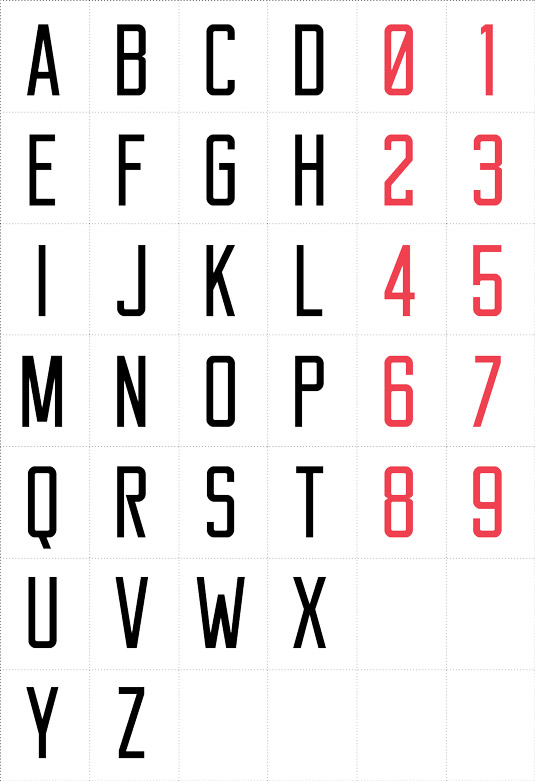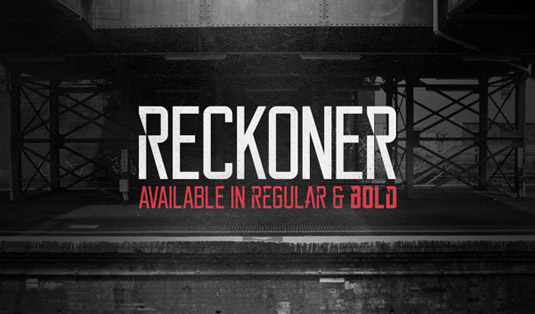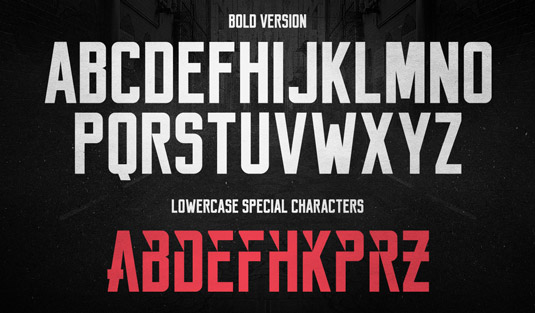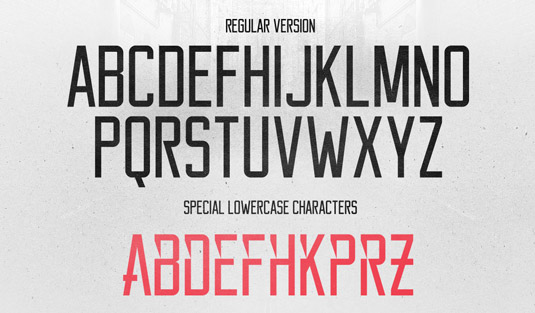
Font of the day: Reckoner
Reckoner by Alex Dale
Today's font of choice Reckoner was created by Sydney-based graphic designer Alex Dale. "Drawing inspiration from popular industrial sans serif typefaces such as Bebas Neue, Alegre Sans & Dharma Gothic, I set out to design a typeface with a modern twist whilst keeping the fundamentals of a traditional font," Dale comments on Behance.
"The result is Reckoner, a free for commercial and personal use typeface that features a secondary set of characters in the lowercase setting that can be placed in your designs to add a unique touch to certain words."